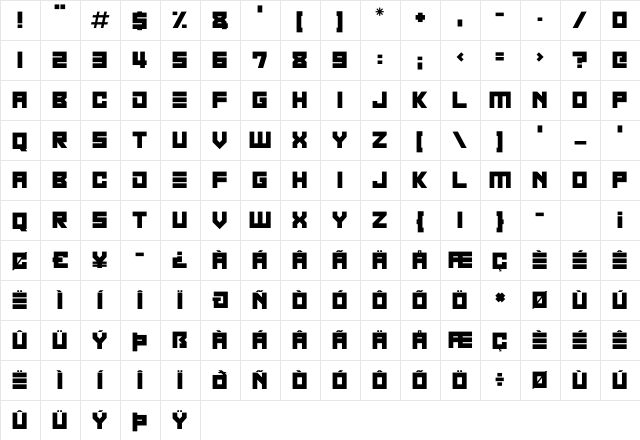
Complete Beyond 2025 Regular glyph index. Displaying only characters natively supported by Beyond 2025 Regular font.
Beyond 2025 is a composed and adaptable typeface that performs quietly and consistently across a wide range of design contexts.